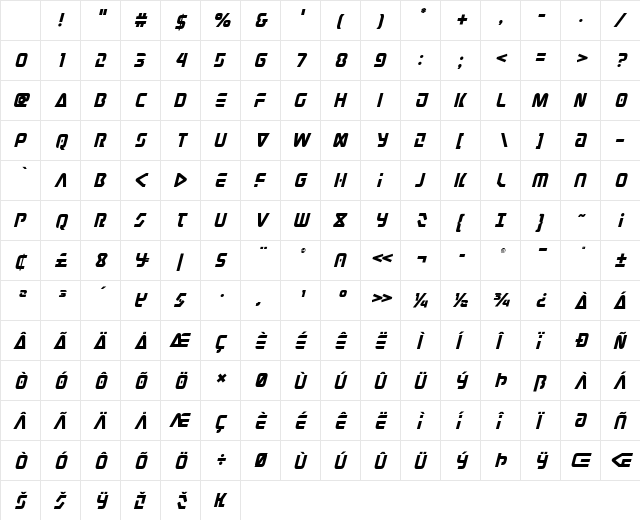
Judge is a composed and adaptable typeface that performs quietly and consistently across a wide range of design contexts. The slanted form adds forward momentum and visual energy.